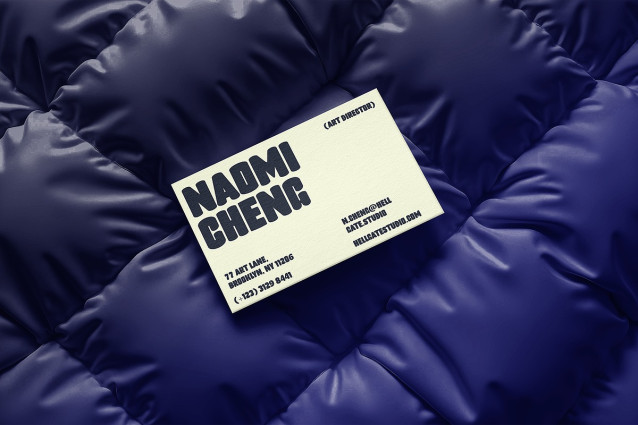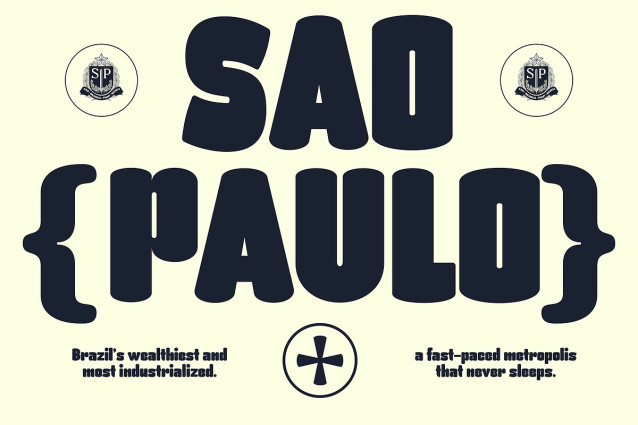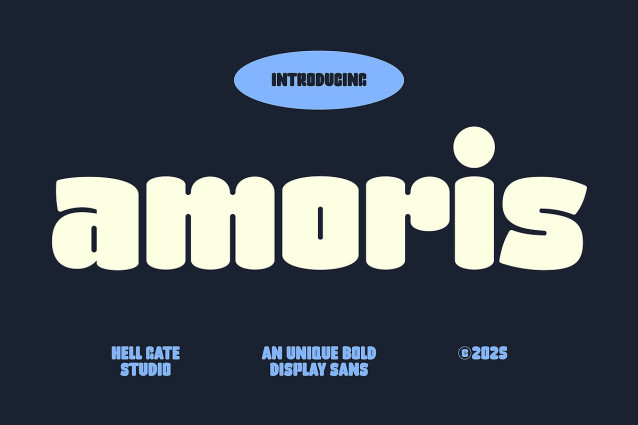
Amoris Font
Amoris Font, a unique bold sans-serif typeface, offers elegance mixed with a classic, bold look. Its user-friendly nature allows for easy editing of text and colors, facilitating a smooth transition from concept to image.